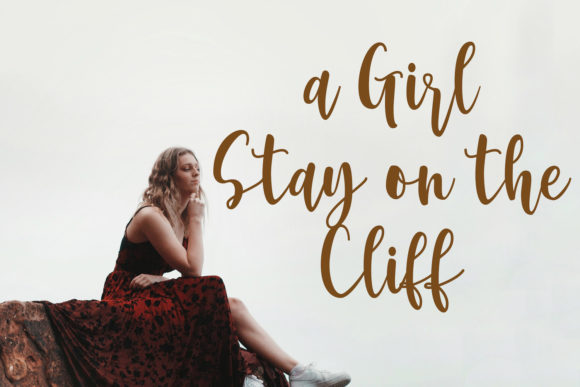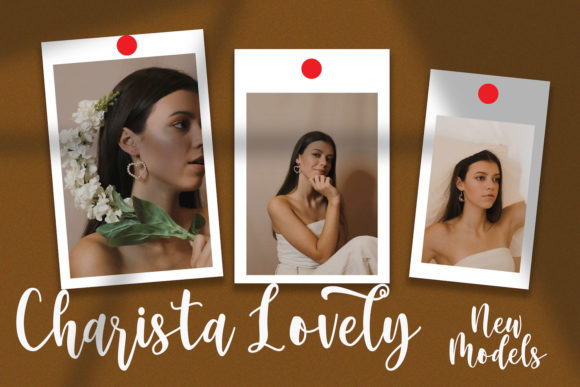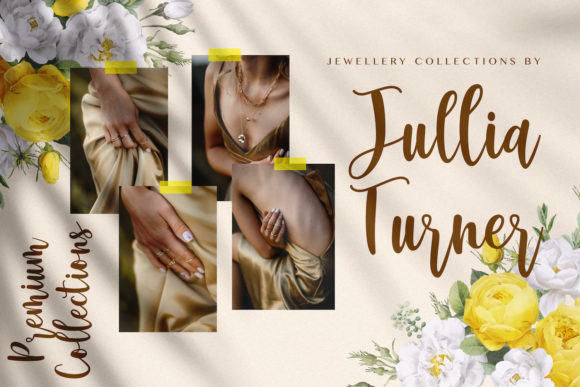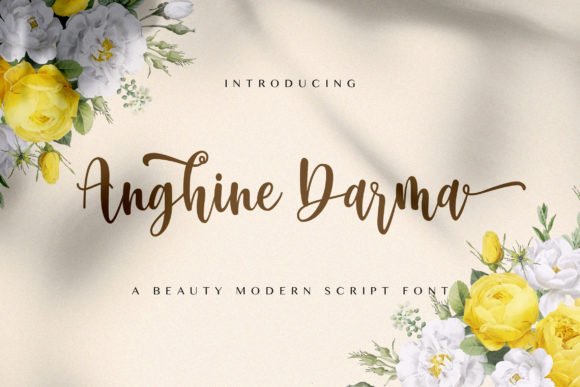
Introduction to Anghine Darma Font
Anghine Darma feels equally charming and whimsical.
It looks stunning on wedding invitations, thank you cards, quotes, greeting cards, logos, business cards and every other design which needs a customized touch This font is PUA encoded which means you can access all of the glyphs and swashes with ease.
Key Features of Anghine Darma Font
Why Choose Anghine Darma Font?
Anghine Darma Font offers exceptional quality and versatility, making it a valuable addition to your design toolkit. Whether you’re creating for personal projects or commercial use, Anghine Darma Font delivers professional results.